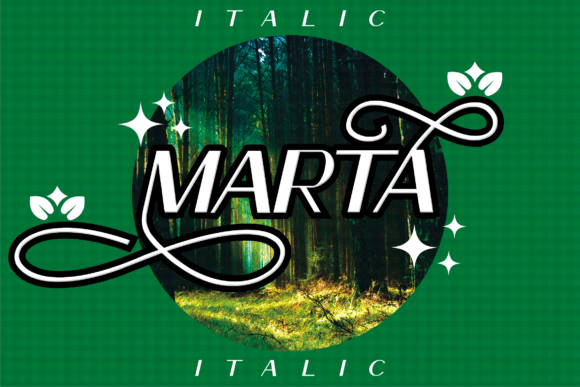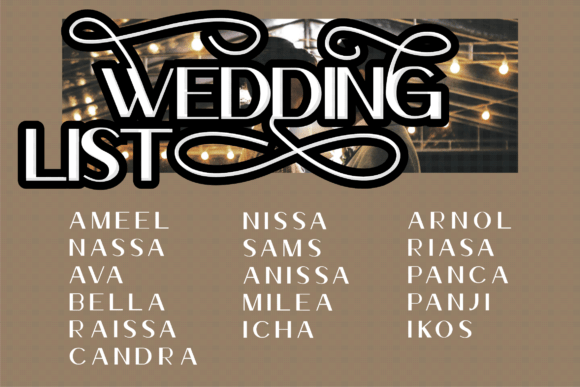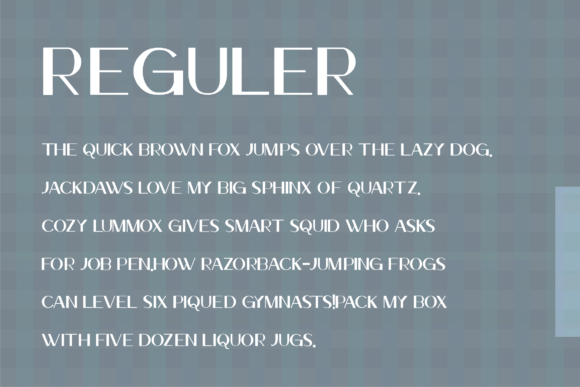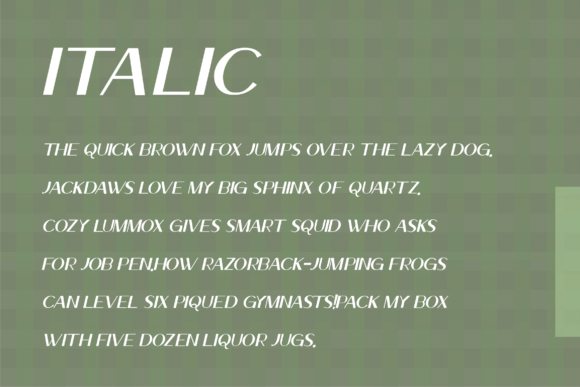
Marta Display Font
This is a cool and distinct looking display font. This font is PUA encoded which means you can access all of the beautiful glyphs and swashes with ease! Add it confidently to your projects, and you will love the results.